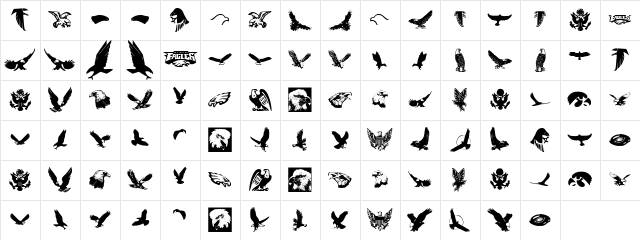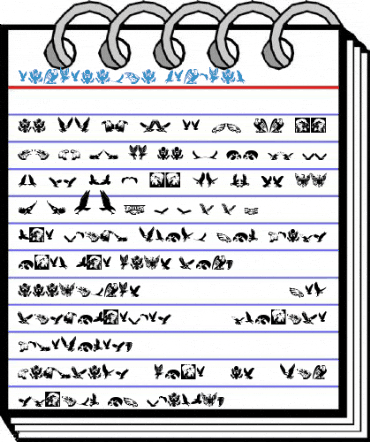
Eaglemania Regular Free Font
Eaglemania Regular
Design Context for Eaglemania
Eaglemania is a composed and adaptable typeface that performs quietly and consistently across a wide range of design contexts.
Pro Tip: Use Eaglemania in both headline and body roles to test its range before committing to a single application.